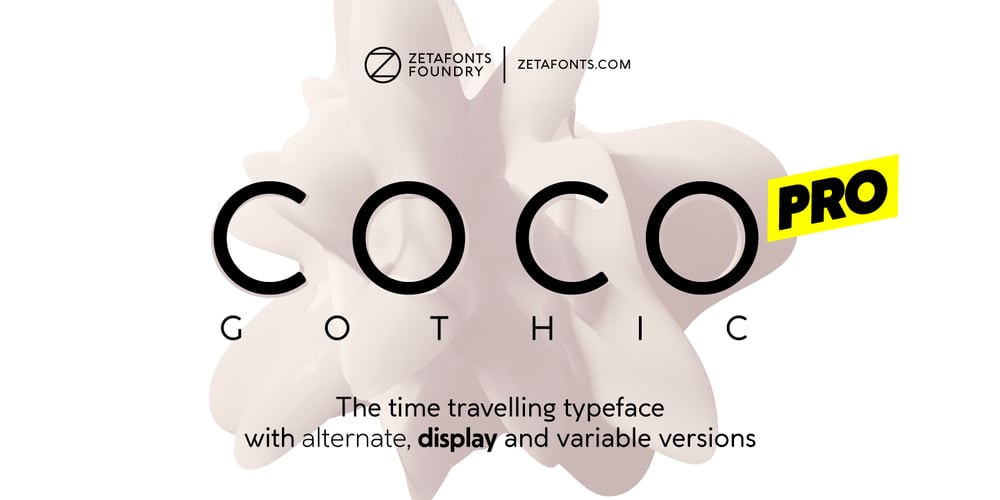
Coco Gothic Pro Font Family was designed by Cosimo Lorenzo Pancini and published by Zetafonts. Coco Gothic Pro contains 48 styles and family package options. Inspired by a biography of Coco Chanel and trying to capture the quintessential mood of classical fashion elegance, Cosimo Lorenzo Pancini designed Coco Gothic looking for the effect that the first geometric sans typefaces (like Futura, Kabel or the italian eponyms like Semplicità) had when printed on paper. The crisp modernist shapes acquired in printing charme and warmth through a slight rounding of the corners that is translated digitally in the design of Coco Gothic. This signature touch is enhanced by the inclusion of light humanist touches to the proportions of the letters, resulting in the unique mix that makes Coco Gothic one of our best sellers, with a look that is both contemporary and vintage.After six years from the original project (that has spawned in the meanwhile successful families like Cocogoose and Coco Sharp), we went back to the design to completely redraw and expand the original family, creating with a Pro version that has better on-screen readability, a wider weight range, variable type versions and more language coverage (with Coco Gothic Arabic adding a new script to the latin, greek and Cyrillic of the original).Coco Gothic Pro comes in three subfamilies, each with seven weights with matching italics and featuring an extended character set with open type support for small caps, ligatures, alternates, European languages, Greek and Cyrillic alphabets.The original, body-text optimised Coco Gothic and Coco Gothic Alternate subfamilies have been kept for compatibility with the previous version, while a new Coco Gothic Display subfamily has been developed with a complete redesign aimed at display usage, featuring tighter spacing and optimised letterforms.A distinguishing feature of Coco Gothic Pro is the inclusion of ten alternate historical sets that allow you to use the typeface as a true “typographic time machine”, selecting period letterforms that range from art deco and nouveau, to modernism and to eighties’ minimalism. Equipped with such an array of historical variants, Coco Gothic Pro becomes an encyclopedia of styles from the last century, ready to transform itself and adapt to the mood of your text.